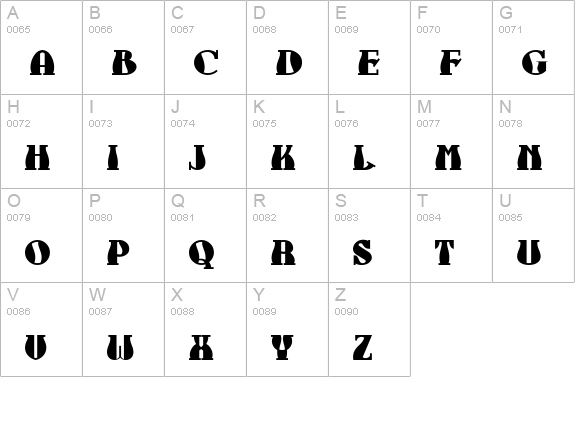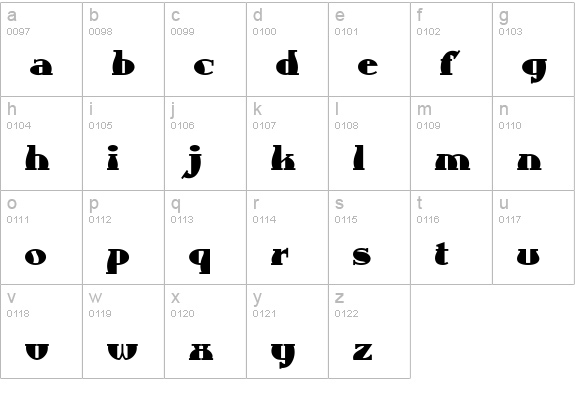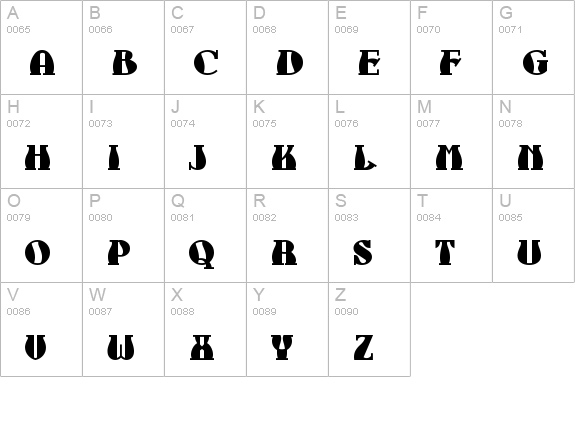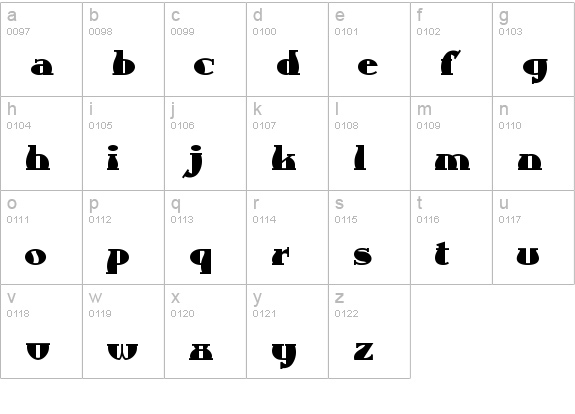
Introducing AuntBertha font - a charming and elegant typeface that exudes a sense of warmth and familiarity. With its unique blend of classic and modern elements, AuntBertha is perfect for adding a touch of sophistication to your projects. This versatile font is ideal for a wide range of design applications, from invitations and greeting cards to branding and packaging. What sets AuntBertha font apart is not only its timeless appeal but also the fact that it is available for free download at FontsMarket.com. Yes, you read that right - you can easily access this beautiful font without any cost. So why wait? Elevate your designs with AuntBertha font today and let its grace and style speak for itself.